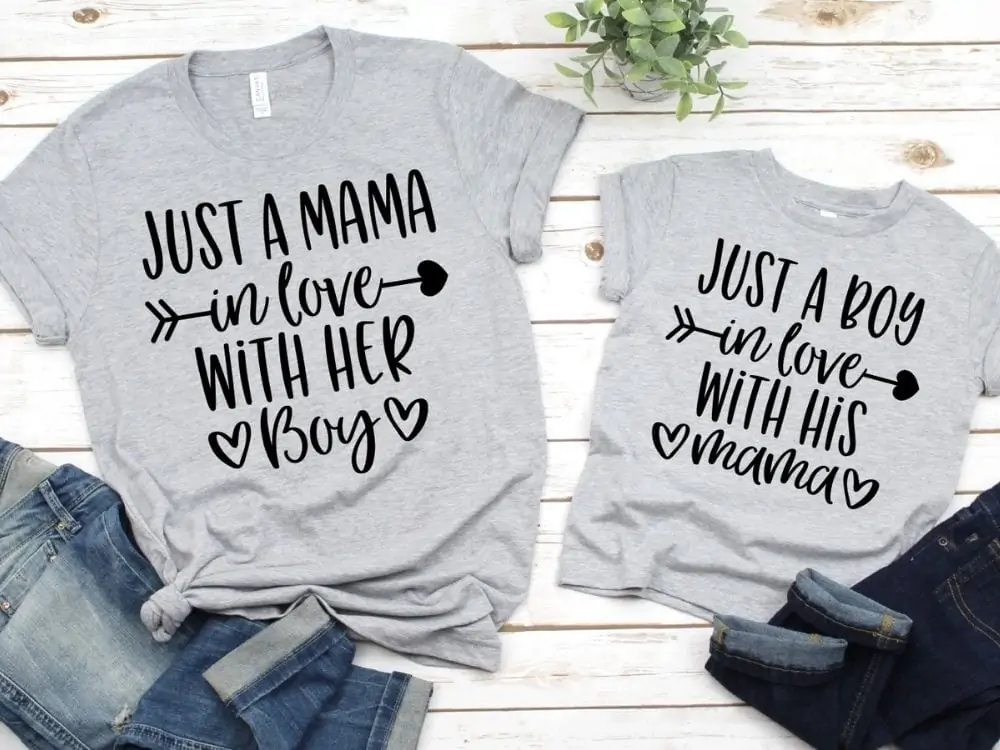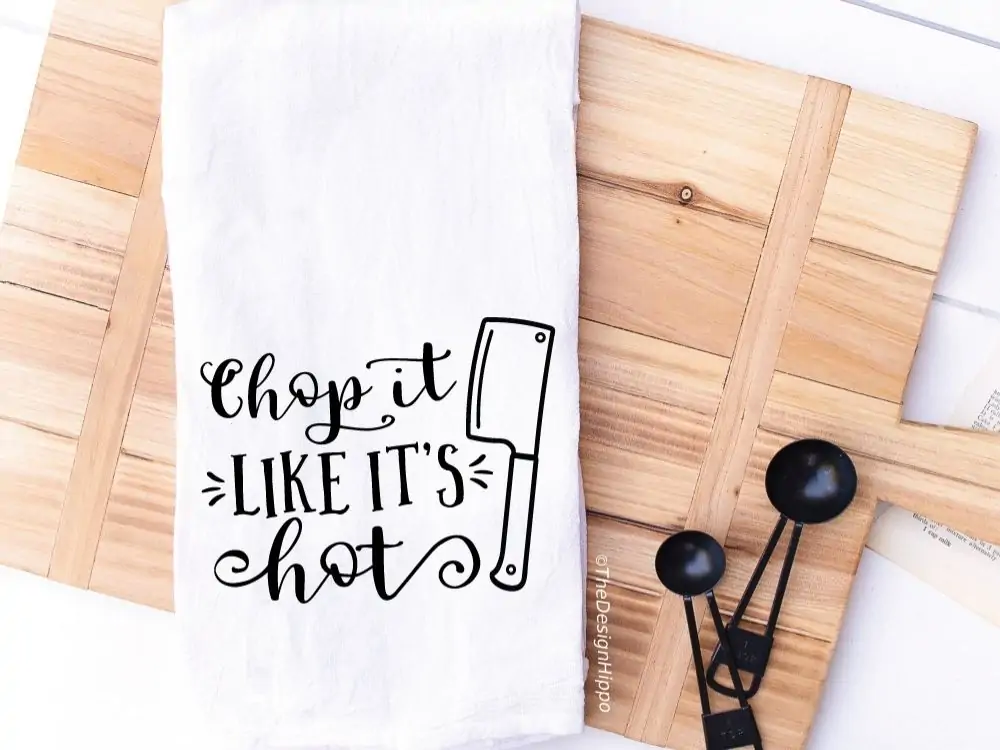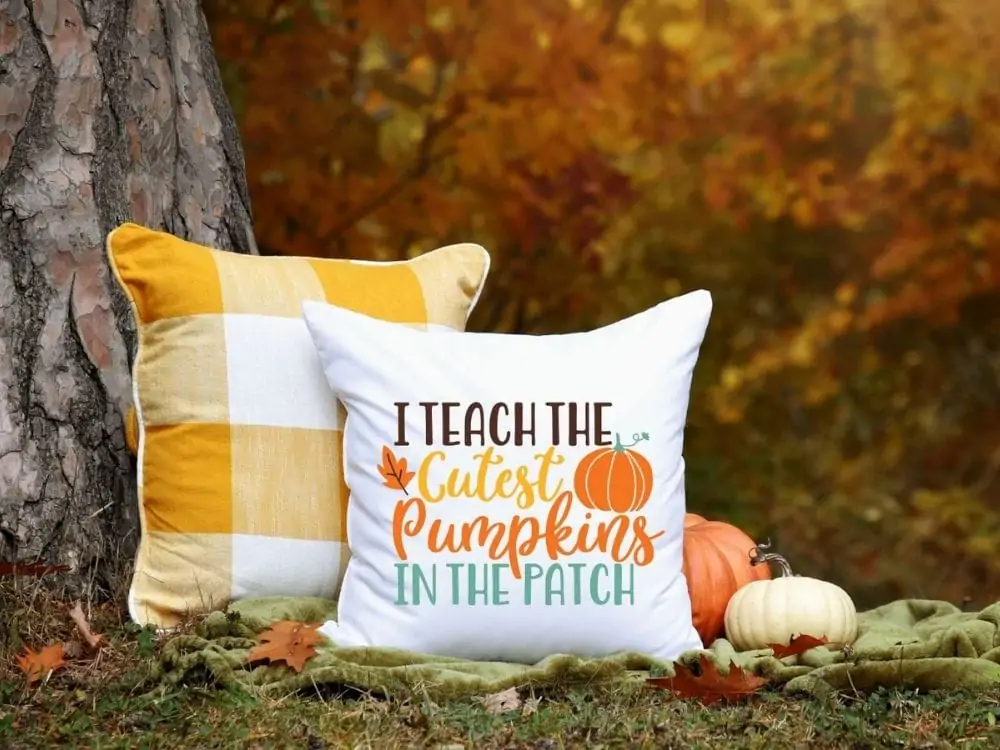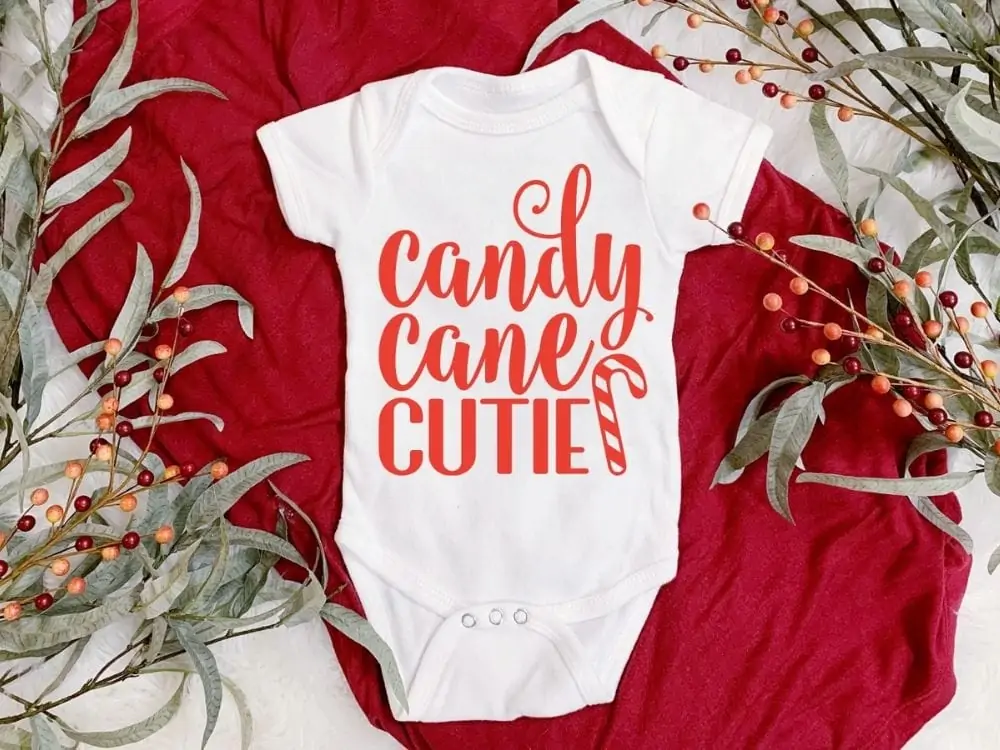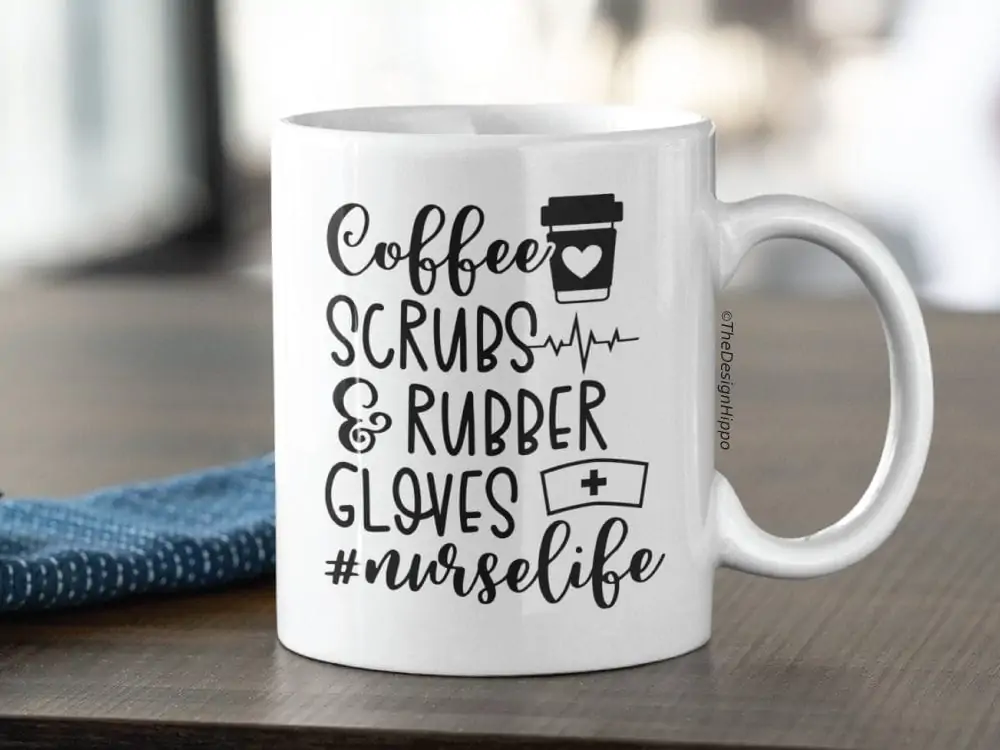
Are you searching for Cricut fonts that go together? Download the best Cricut font pairings to combine cursive and script fonts with serif and sans fonts. Great for all your personalized projects made with Cricut Maker, Joy, or Explore machine.
When you find the perfect font combination, it feels like hitting the jackpot! That’s why you will love the best Cricut font pairings in this post to create unique DIY crafts.
If you’ve been searching a lot for fonts to use together that will take your project to the next level, you should definitely try the font combos on this list.
I’ve included everything from shadow and calligraphy fonts to cute sans and elegant serif fonts. These fonts are easy to download to Cricut Design Space and cut vinyl easily.
Add your personalized touch to any project with these best Cricut font pairings.
Best Cricut Font Pairings
1. Beachwood Script & Sans
Best Overall Cricut Font Pairing
Whether you are a beginner or a seasoned crafter, if there is a must-have Cricut font pairing I recommend, go for Beachwood!
Beachwood is a beautiful font combination featuring a cute script font with an adorable sans font. Yes, you get two perfectly paired fonts in a single purchase!
I made so many crafts using this versatile font for every occasion imaginable. I lost count of how many times I have been asked the name of this font!
Beachwood is the perfect Cricut font to make shirts, tumblers, wood signs, and many more. Every time, the designs stand out! Plus, the font cuts vinyl smoothly and quickly.
2. Monstterday Script & Caps
Most Popular Cricut Font Combination
The Monstterday font duo is the best Cricut font pairing when it comes to value for money. Two perfectly paired fonts in a single purchase!
The handwritten script font comes with a rustic caps font and tons of cute doodles – everything you need to create a design from scratch.
Love the boho arrow I used in the matching Mommy and Me t-shirts? Get them from the Good Selection font family.
3. Way To The Heart & Market
Best Script & Display Font Pairing
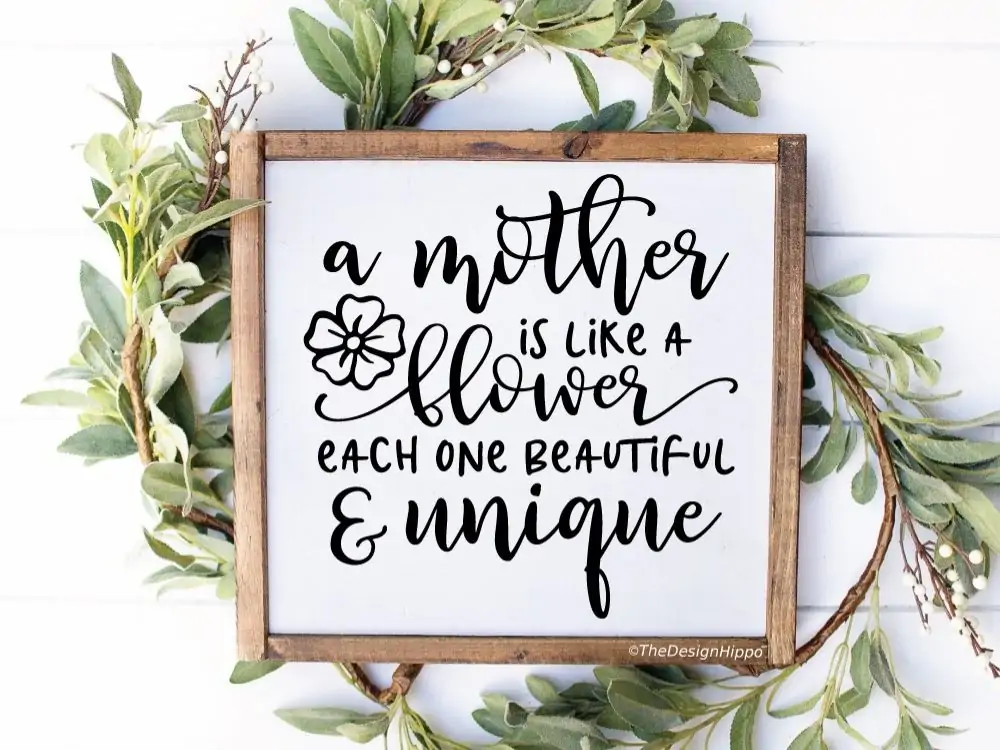
Want to make rustic farmhouse-style designs with your Cricut? Then this stellar Cricut font combination is for you!
Way To The Heart is an elegant Cricut script font with tails. Complement the font with Market, a playful display font with a free-spirit vibe.
I guarantee that your home decor crafts with this Cricut font pairing will turn out beautiful! The floral element featured in the design is from a beautiful dingbat font called Play Your Leaves. The dingbat font comes with tons of nature doodles that will help you create unique designs.
4. Boogie Down & Eucalyptus Spearmint
Best Cute & Playful Cricut Font Pairing
Boogie Down is hands down one of the cutest Cricut fonts! This pretty and playful sans font is my go-to for creating fun designs. The i’s are dotted with hearts, making this font so unique!
Boogie Down pairs with the equally fun and playful Eucalyptus Spearmint font. The great thing about Eucalyptus Spearmint is that it features bouncy all-caps sans letters and lowercase script letters. These two Cricut fonts go well together and are perfect for creating funny t-shirts, tumblers, mugs, and more.
5. Better Caramel & Gabelisa
Best Cricut Font Combination
You can never go wrong by pairing a good serif font with an elegant script font. The Better Caramel and Gabelisa Cricut font combination is the perfect example!
Better Caramel features sans and serif fonts that come in hollow and bold versions. This tall serif font compliments the thick handwriting font, Gabelisa, to create cute designs that are easy to cut.
6. Miss Neally & Myfrida Shadow
Best Cricut Fonts That Go Together
Get ready to create the most fun SVG designs ever with this stellar Cricut font pairing! Miss Neally is a smooth monoline Cricut script font. I love the authentic handwriting feel of this font.
Use the Myfrida Shadow font with Miss Neally to create one-of-a-kind designs for t-shirts, mugs, tumblers, tote bags, and more.
7. Good Selection & Catalina
Best Cricut Font Pairing for Back To School
How cute does this back-to-school t-shirt look? My customers LOVE this design and ask me what fonts I use all the time.
The sans version of the Good Selection font works perfectly with the thick and bouncy Catalina Cricut script font. The Good Selection font comes with tons of cute doodles that are sure to add a unique touch to your crafts.
8. Breakfast Pastry & Quotable
Best Font Combination for Farmhouse Designs
This Cricut Kitchen Conversion Chart is a massive hit with my blog readers! No wonder because of the awesome fonts used in this design.
The Breakfast Pastry and Quotable Cricut font pairing is a life-saver! DIY wood signs turn out AMAZING with these fonts.
More Best Fonts for Cricut
I hope this list helped you pick your favorite font combination!